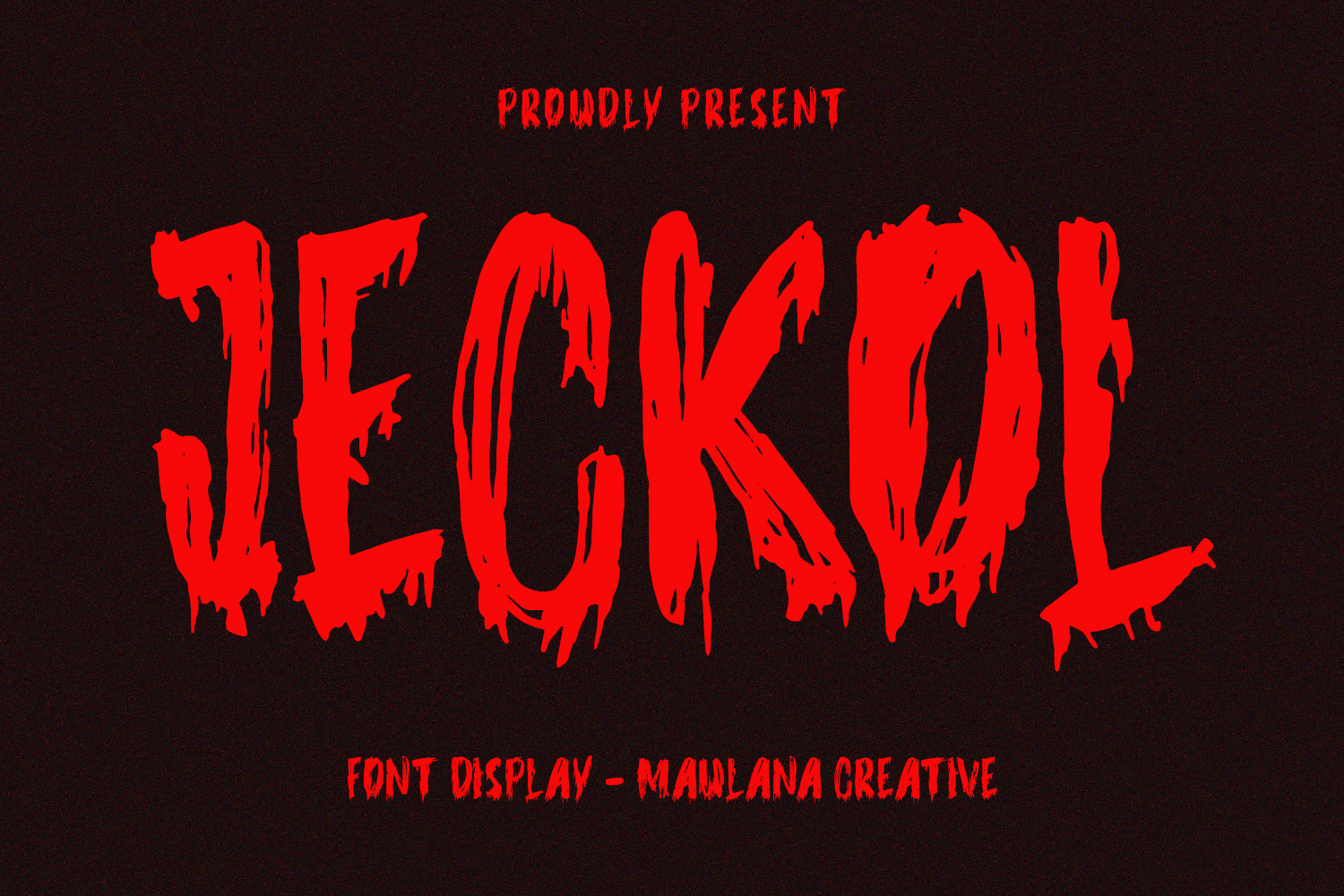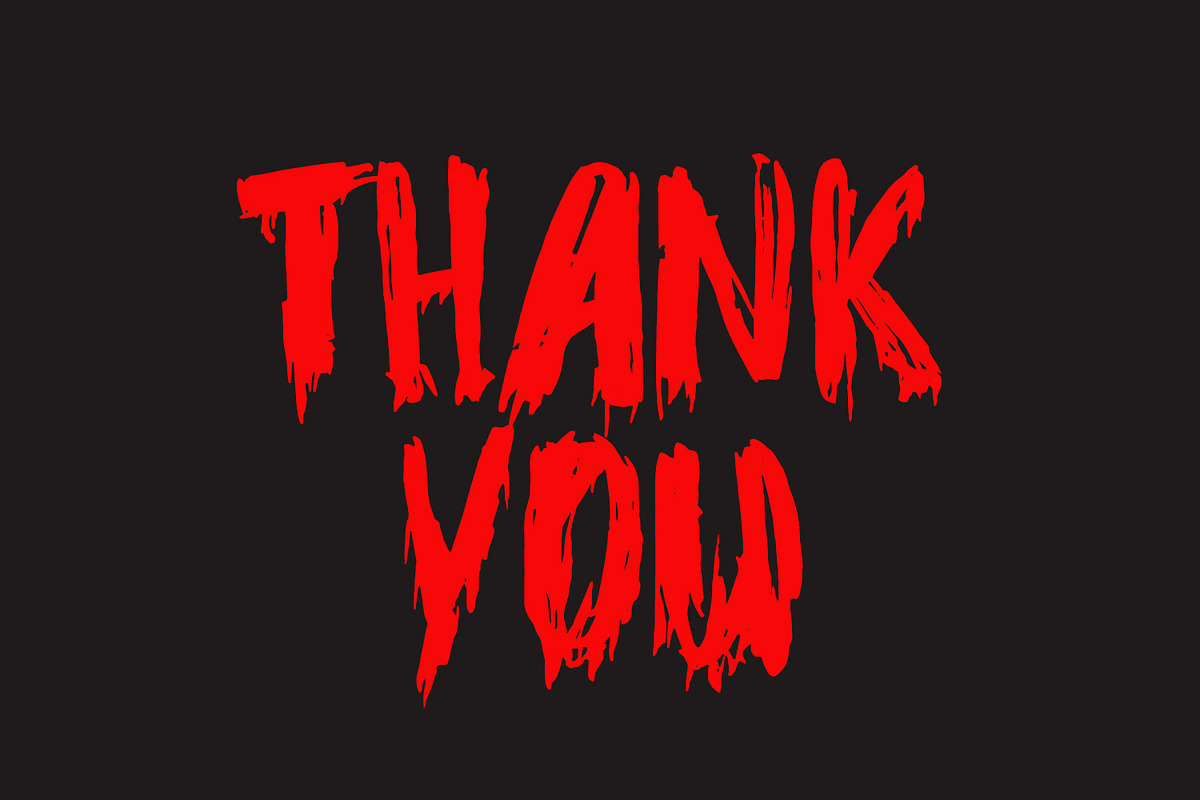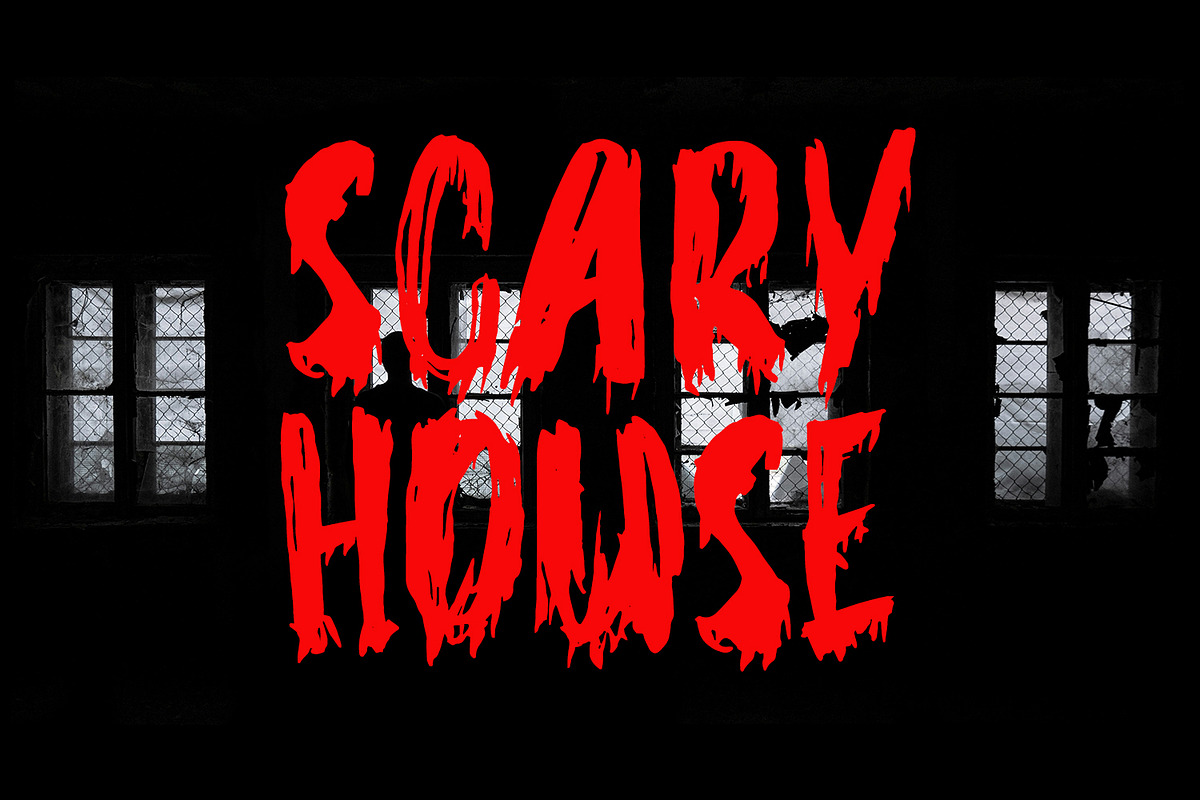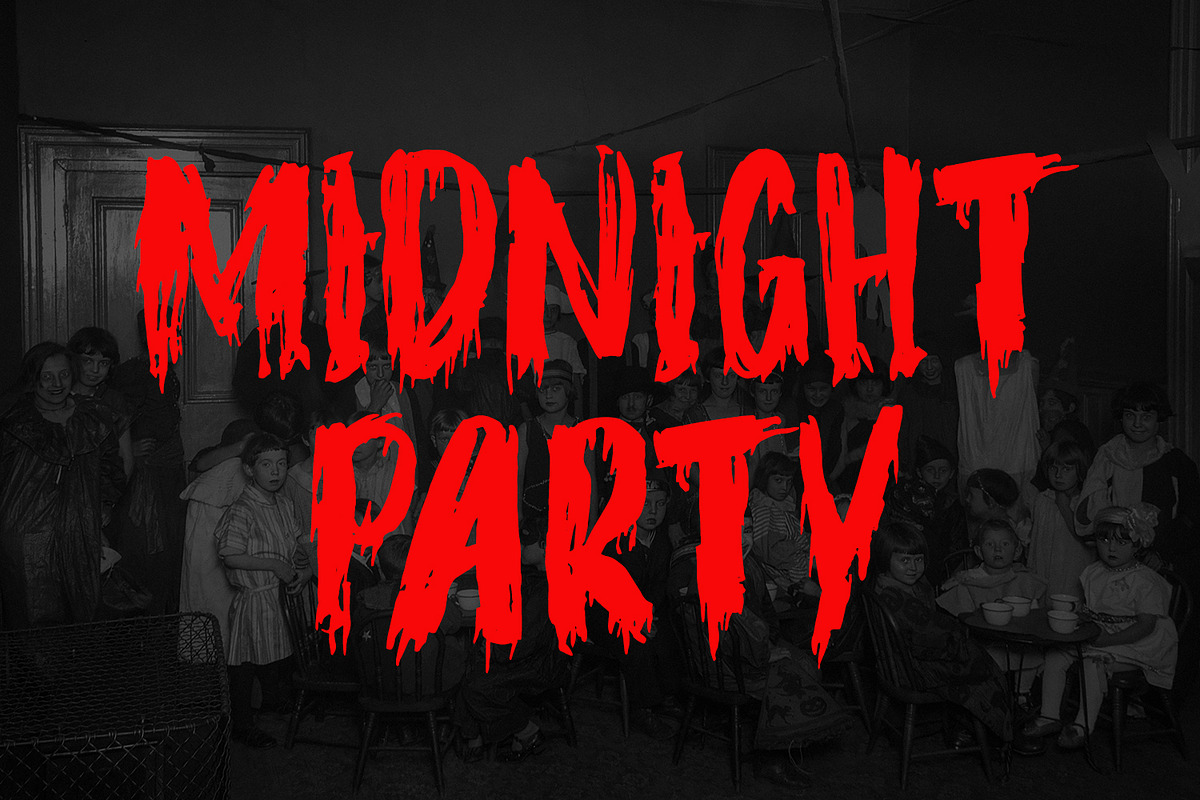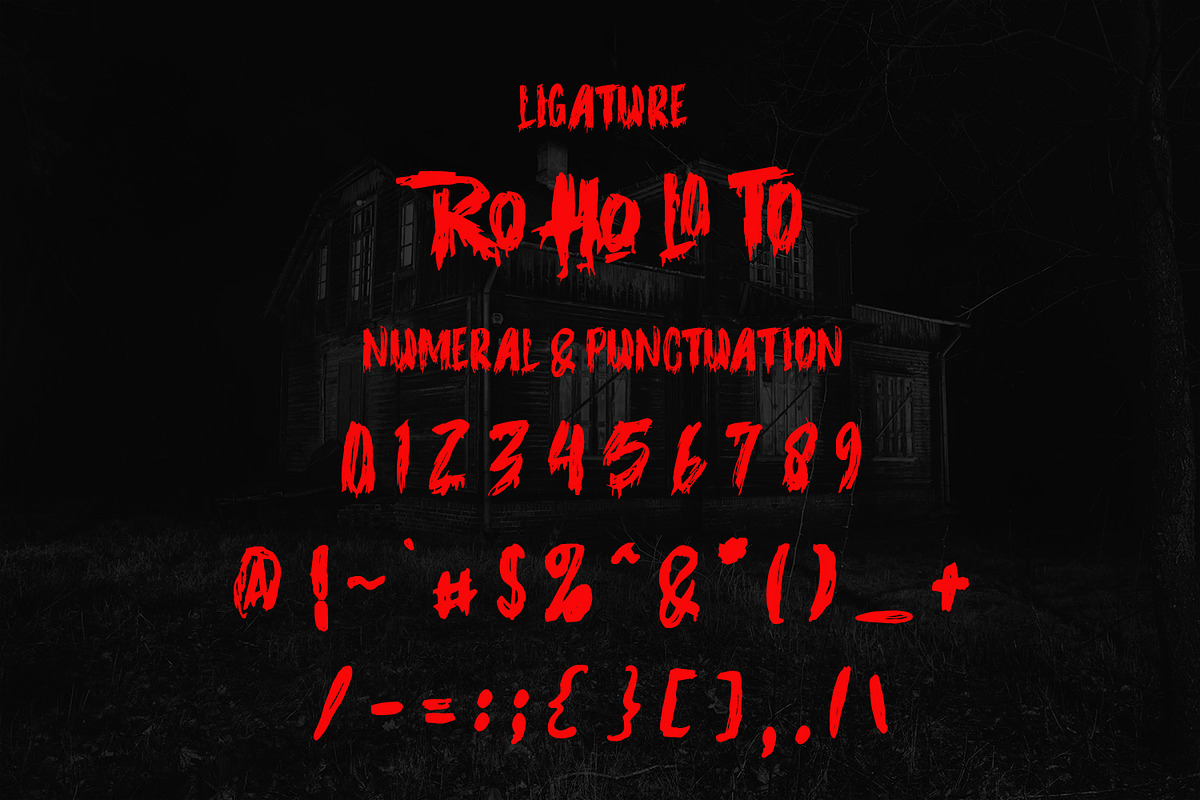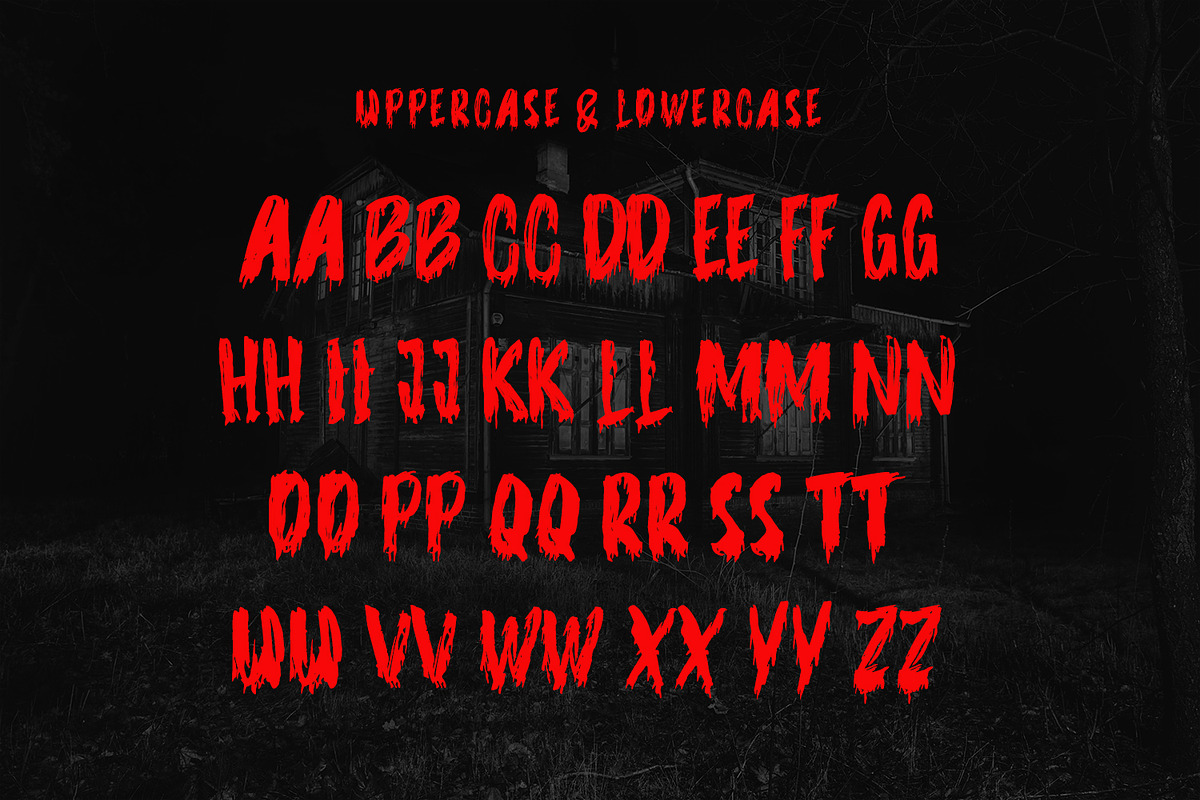
Jeckol Display Horror Brush Font
Jeckol handmade horror display brush font. Heavy stroke, scary character with a ligatures. To give you an extra creative work. Jeckol brush font support multilingual language. This font is good for logo design, Social media, Movie Titles, Books Titles, a short text even a long text letter and good for your secondary text font with script or serif. Make a stunning work with Jeckol brush font.